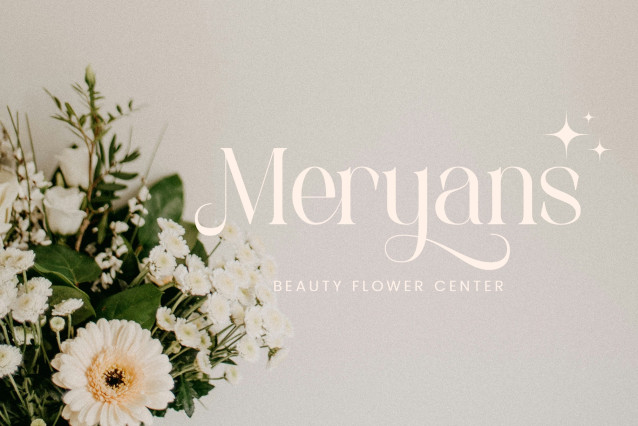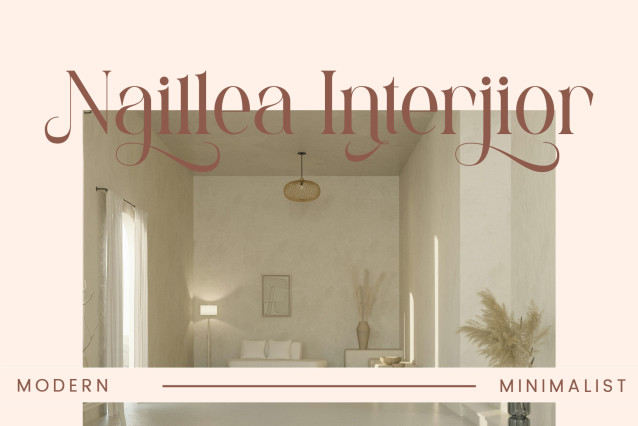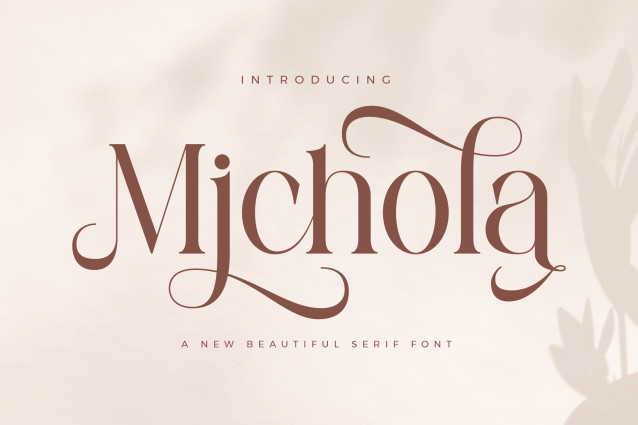
Michola – Beautiful Serif Font
Michola Stylish Ligature Typeface, inspired by the famous minimalist logo perfect for the purposes of designing templates, brochures, videos, advertising branding, logos and more.
– Ligatures
– International Accent